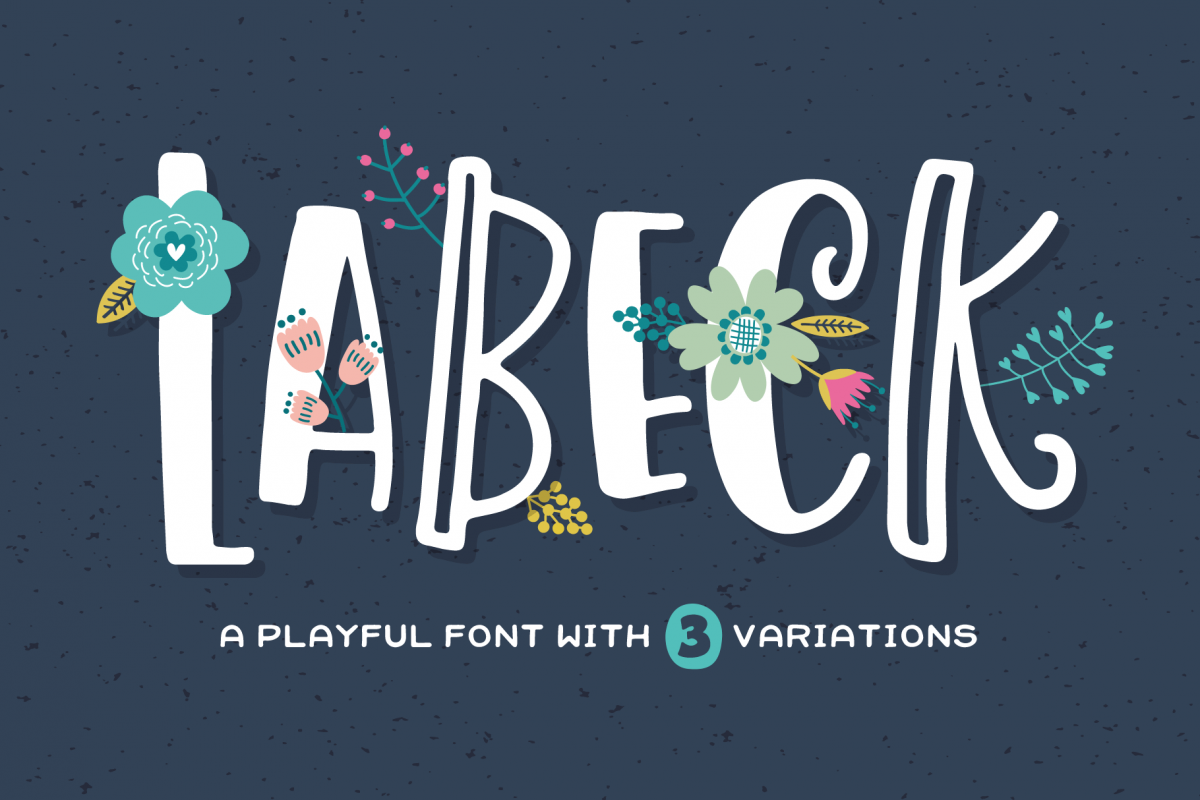
Labeck Font
Introducing: Labeck! A playful font that comes in three variations which can be used individually or mixed together for a unique and fun look.
Labeck Font